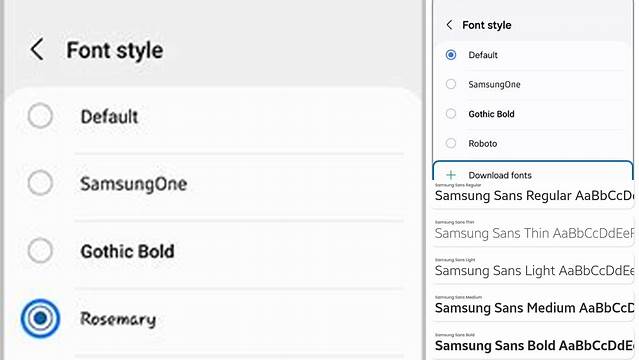
Free Samsung Font Downloads For Android: A Guide
Samsung Font Style Download Free for Android: A Comprehensive Guide
Hey guys! Ever looked at your Android phone and thought, "Man, I wish I could change the font?" Well, you're in luck! This guide will walk you through everything you need to know about Samsung font style download free for Android, making your phone's display uniquely yours. We'll cover the basics, explore different methods, and make sure you're rocking a fresh new look in no time. Let's dive in!
Why Customize Your Font?
First things first, why even bother with changing your font, right? There are several awesome reasons to get into Samsung font style download free for Android and personalize your device. For starters, it's all about personalization. Your phone is an extension of yourself, and customizing the font is like choosing the perfect outfit for your digital life. It reflects your personality, whether you're into sleek modern styles, playful handwritten fonts, or something bold and eye-catching. Plus, it's a fantastic way to stand out from the crowd. Everyone's phone looks pretty similar, but a unique font can make yours instantly recognizable. But it's not just about aesthetics, guys. Font customization can also significantly improve readability and usability. Some fonts are simply easier on the eyes, especially if you spend a lot of time reading on your phone. People with vision impairments can also benefit from choosing fonts that are larger, bolder, or designed for better clarity. This is where Samsung font style download free for Android helps with your comfort. And finally, changing your font can simply make your phone more enjoyable to use. It's a small change that can make a big difference in your overall experience. A font that you love can turn a mundane task like checking emails into something a little more pleasant. So, whether you're looking to express yourself, improve readability, or just have some fun, customizing your font is a great way to do it. So, are you ready to find the perfect Samsung font style download free for Android?
Methods for Downloading Samsung Fonts on Android
Alright, now for the good stuff! There are several methods you can use to get those sweet Samsung font style download free for Android fonts onto your device. Let's break down the most popular and user-friendly options. First off, we have the Samsung Galaxy Theme Store. This is often the easiest and most straightforward way to download fonts on Samsung devices. Here's how to do it: Open the Theme Store app. Tap on the "Fonts" section (usually located at the bottom or in the menu). Browse through the available fonts. You'll find a mix of free and paid options. Tap on the font you like, then tap "Download" or "Apply." That's it! Your font should be applied instantly. Keep in mind that the Theme Store is exclusive to Samsung Galaxy devices, so this method is the most convenient option for the Samsung user. Next up, we have third-party apps. There are tons of apps available on the Google Play Store that offer font customization options. Some popular choices include iFont, FontFix, and HiFont. Here's the general process: Download and install a font app from the Play Store. Open the app and browse through the font options. Download the fonts you want. Follow the app's instructions to install and apply the font. This method is compatible with more Android devices. Lastly, you can use custom ROMs, if you're tech-savvy and comfortable with it. Custom ROMs often come with extensive customization options, including font settings. However, this method can be risky if not done correctly, so do your research and proceed with caution. For most users, the Theme Store and third-party apps are the safest and most convenient options for accessing Samsung font style download free for Android fonts.
Top Free Samsung Font Styles to Download
So, you're ready to explore some font options, eh? Fantastic! Here are some of the top free Samsung font style download free for Android fonts you can grab right now. First on the list, we have Roboto. Roboto is a modern, clean font that is a default font on many Android devices. It's super readable and looks great on any screen size. Next up is Open Sans. This is a versatile, neutral font that works well for various purposes. It's also very readable and easy on the eyes. Then there's Lato. Lato is a friendly and approachable font, perfect for everyday use. It's a good choice if you want something that's both stylish and functional. Let's not forget Nunito. Nunito is a rounded sans-serif font that's both playful and modern. It's a great option if you're looking for something a bit different. And finally, we have Montserrat. Montserrat is a geometric sans-serif font that is extremely popular for its legibility and modern aesthetic. These are just a few examples of the amazing free fonts available. You can find tons of other styles, from elegant serifs to quirky handwritten fonts. When choosing a font, consider readability, your personal style, and the overall look you want to achieve. Experimenting is key, so don't be afraid to try out different options until you find the perfect one for your device. You can't go wrong when you Samsung font style download free for Android, it is all about fun!
Choosing the perfect font can feel like a big decision, but don't sweat it, guys! Here are some helpful tips to guide you on your Samsung font style download free for Android journey. First, consider readability. The primary function of a font is to be readable. So, make sure the font you choose is easy to read at various sizes and in different lighting conditions. Personal preference is also key. Choose a font that you genuinely like and that matches your personal style. Do you want something clean and modern or something more playful and unique? Think about the overall aesthetic you want to achieve. Does the font fit the theme and feel of your phone's interface? Will it complement the apps and content you frequently use? Think about the font's purpose. Is the font mainly for reading text messages, browsing the web, or creating documents? Different fonts are suitable for different tasks. Consider the font's legibility. Some fonts are better suited for smaller screens or longer reading sessions than others. Try out different fonts and see how they look with your most-used apps. Don't be afraid to experiment. Try out different fonts and see how they look on your screen. You can always change them back if you don't like them! Keep in mind font pairing. If you're using multiple fonts, make sure they complement each other. Don't use too many different fonts at once, as it can look cluttered. Read reviews and ratings from other users before downloading a font. This can give you a good idea of its quality and compatibility. Keep in mind your phone's screen size and resolution while selecting the font. Fonts may appear different on screens of different sizes. Following these tips, you will find the perfect Samsung font style download free for Android that matches your phone.
Conclusion: Unleash Your Phone's Style
So, there you have it! You're now armed with the knowledge you need to explore the world of Samsung font style download free for Android and transform your phone's look. From using the Theme Store to third-party apps and more, there are plenty of ways to customize your device. Remember to choose fonts that you love, prioritize readability, and always respect licensing terms. Have fun experimenting and finding the perfect fonts to express your personality. Now go forth and make your phone uniquely yours! Happy customizing!